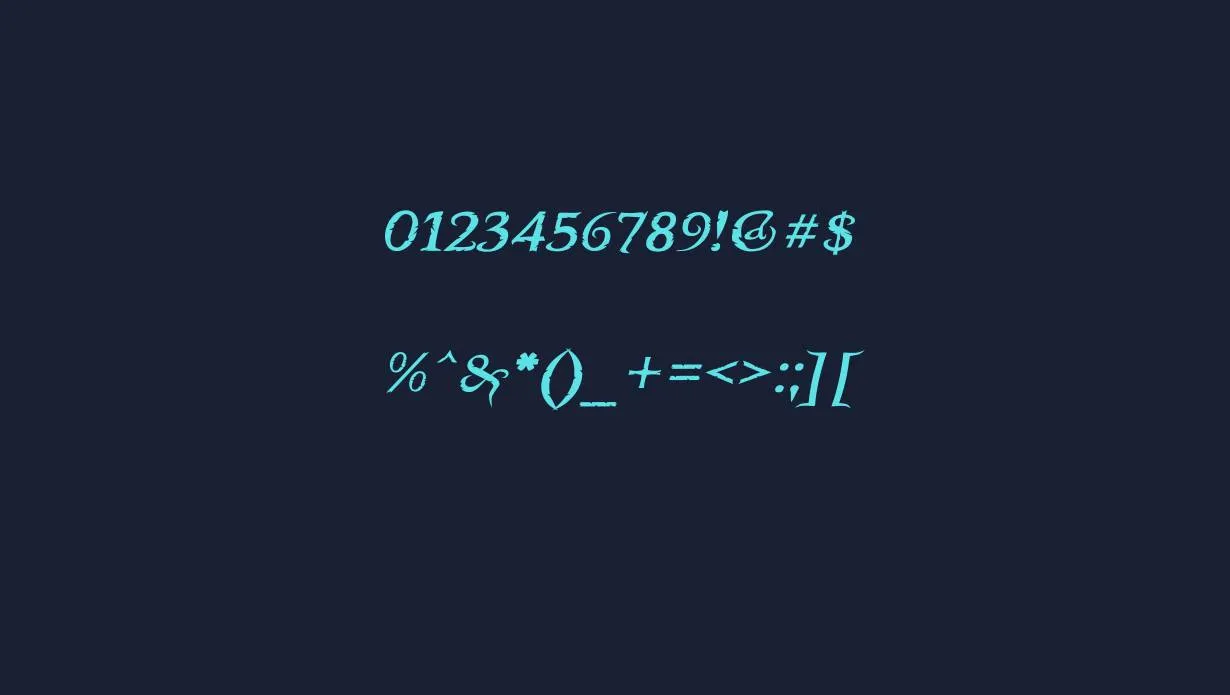
Booter font has gained a lot of popularity because of its unique and attractive design of characters. It was designed and published by Apostrophic Labs. They designed many other elegant and popular fonts.
This typeface comes from a Gothic family. The bold and robust characters of this typeface are useful for creating appealing headlines, titles, and subheadings.
| Name | Booter Font |
| Designer | Apostrophic Labs. |
| Style | Gothic |